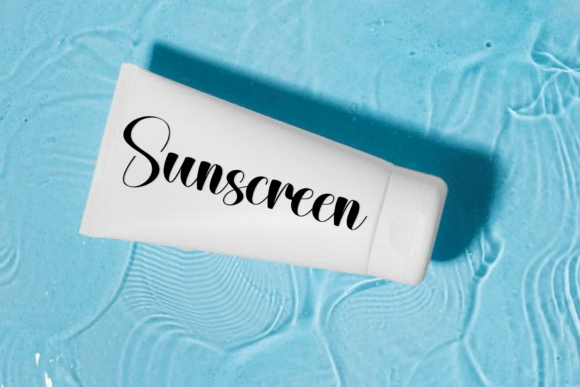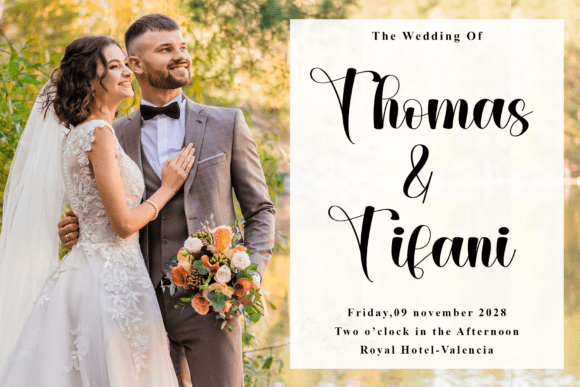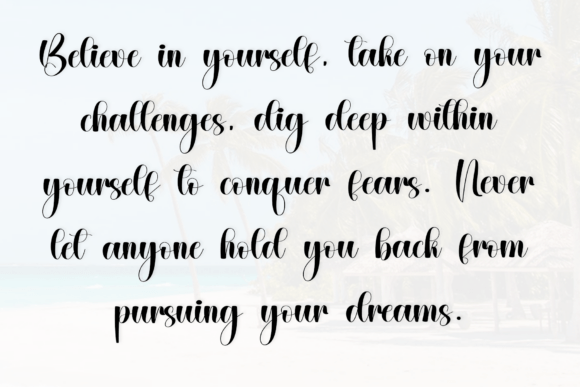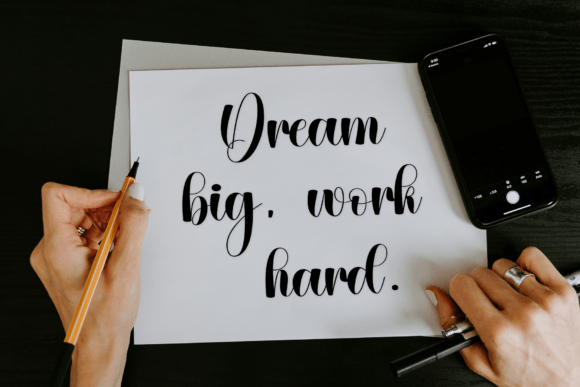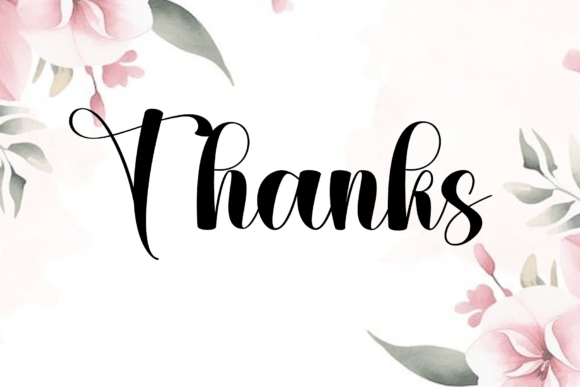
The Magic of Fantasy Font: A Designer’s New Best Friend
I’ll never forget the time I was working on a wedding invitation design project, and my client specifically asked for a font that was ” elegant, yet playful, and totally Instagram-worthy.” I scoured the internet, tried out a gazillion fonts, but nothing seemed quite right. That was until I stumbled upon Fantasy Font. 💕
This sweet and cursive handwritten font has been a game-changer for me, and I’m excited to share its magic with you. In this article, we’ll dive into the world of Fantasy Font, exploring its features, how to use it, and what makes it so special.
- 💖 Elegant yet casual: Fantasy Font strikes the perfect balance between sophistication and playfulness.
- ✅ Versatile: It looks stunning on a variety of design projects, from branding and logos to wedding materials and greeting cards.
- 🎉 Romantic touch: This font adds a whimsical, dreamy feel to any design.
- 👍 Easy to read: Despite its cursive nature, Fantasy Font remains clear and legible.
- ⚠️ Limited use in very formal or corporate designs: Fantasy Font might be too playful for very formal projects.
- 🤔 May not be suitable for very long texts: Its cursive nature can make it harder to read in large blocks of text.
The Story Behind Fantasy Font: Designer Inspiration
Fantasy Font was created with the intention of capturing the essence of whimsy and romance in a digital format. Its designer aimed to craft a font that would be both elegant and approachable, perfect for a wide range of creative projects. While the exact backstory might be fictional, one can imagine a designer sitting by a cozy café, sipping a latte, and handwriting notes that eventually became this beautiful font.
| Font Name | Fantasy Font |
| Author | Black line |
Q: What makes Fantasy Font unique?
A: Fantasy Font stands out due to its elegant yet playful cursive style, making it perfect for projects that require a touch of romance and whimsy.
Q: Is Fantasy Font suitable for body text?
A: While Fantasy Font is beautiful, it’s best used for headings and short texts due to its cursive nature, which can be harder to read in large blocks.